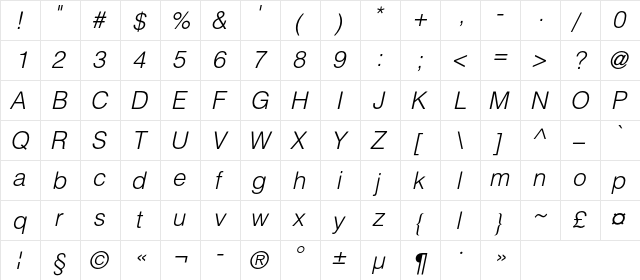
HeliosLightC Italic
Design Context for HeliosLightC Typeface
HeliosLightC takes a measured approach to typography — its balanced proportions and neutral character make it a reliable workhorse for both digital and print work. The dynamic lean of this cut emphasises speed and emphasis in any layout. Its slender proportions lend an understated elegance to any composition.
Pro Tip: Use HeliosLightC for emphasis, pull quotes, and subheadings where its slanted energy can add rhythm to the layout.